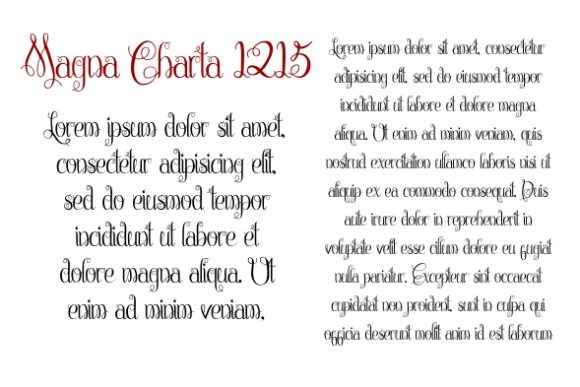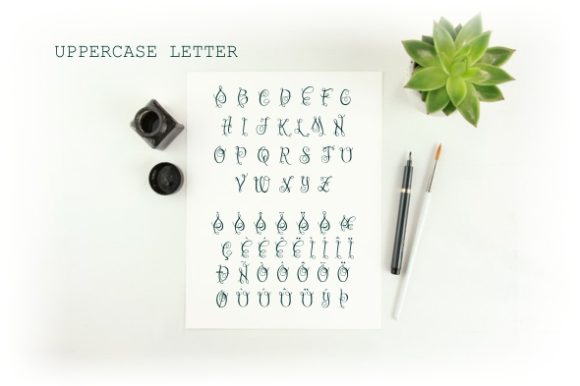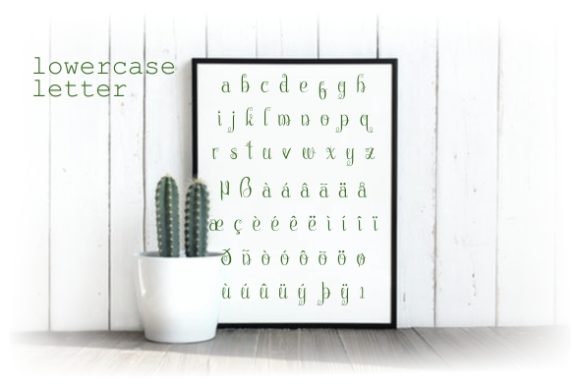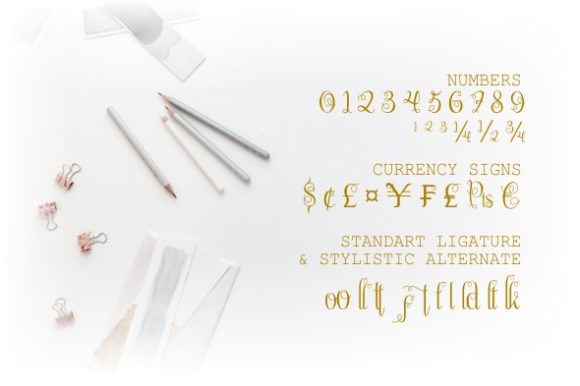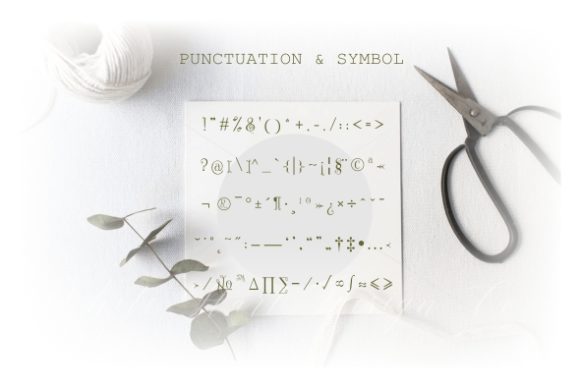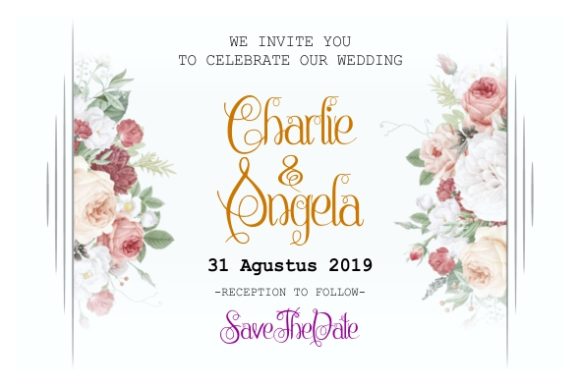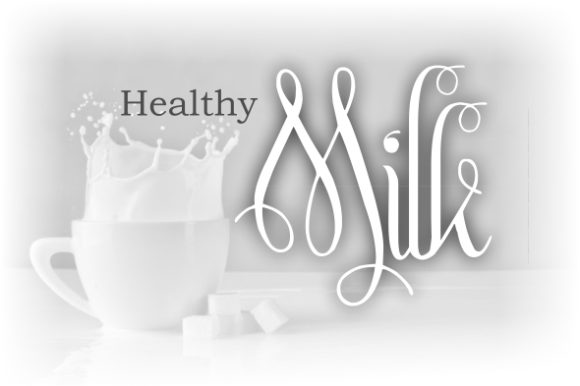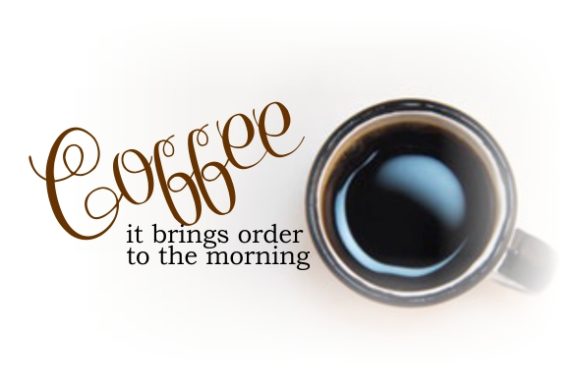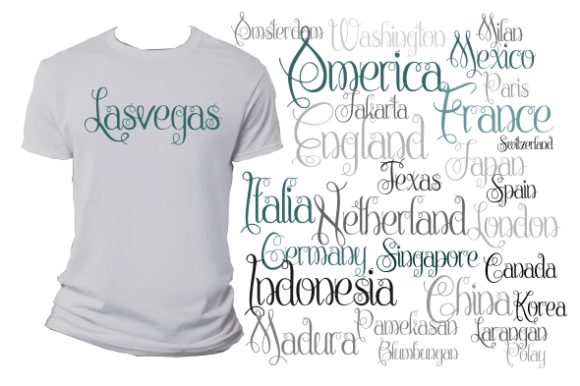
Chattelyne Font
About Chattelyne Font
Chattelyne is a beautiful and delicate handwritten font with a unique spark. Fall in love with its stunning swashes.